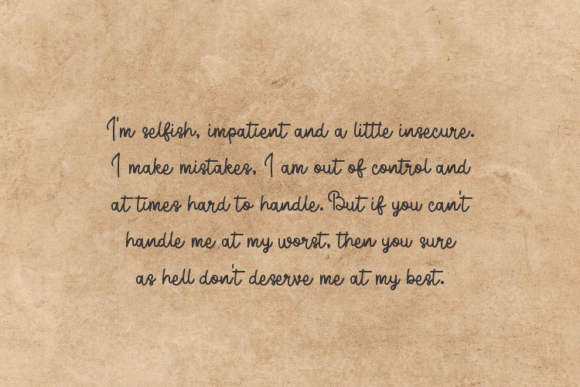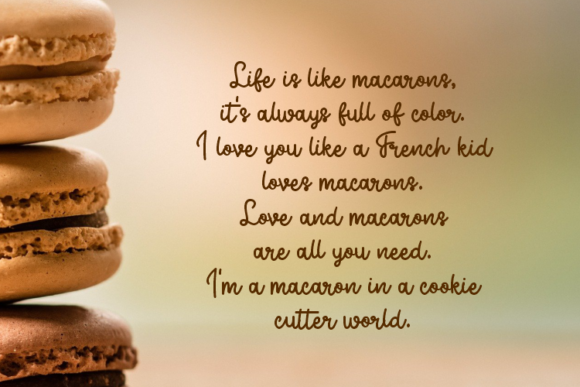
About Zenada Font
Zenada is a vintage and adaptable handwritten font. It is suitable for various design needs such as business cards, wedding invitations, banner ads and various other creations.